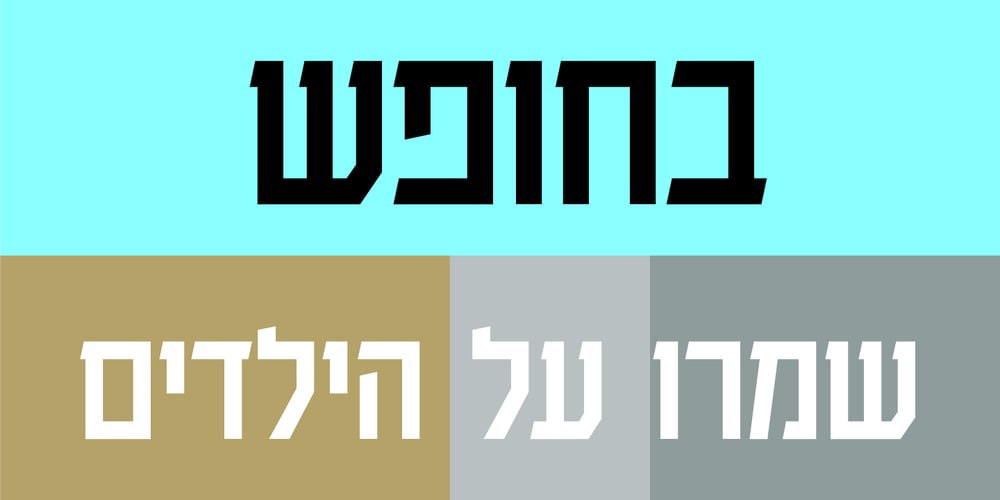
Haim Arukeem MF Font Family was designed by Zvika Rosenberg and published by Masterfont. Haim Arukeem MF contains 2 styles and family package options. Very tender serif makes this condensed font family headlines stand out.